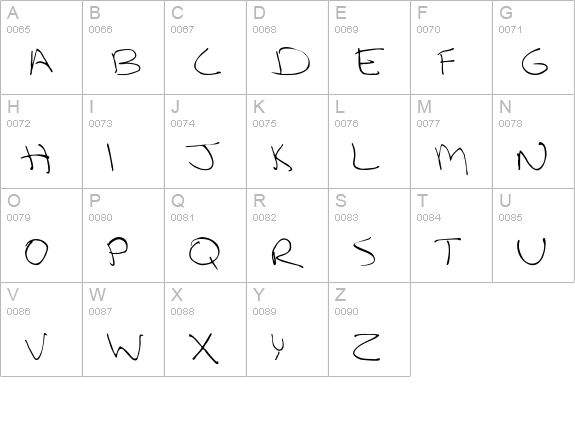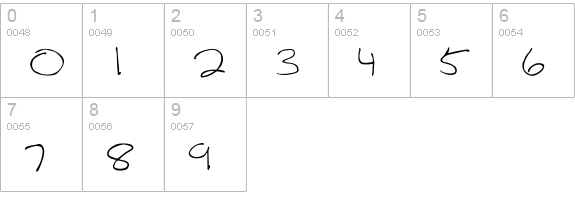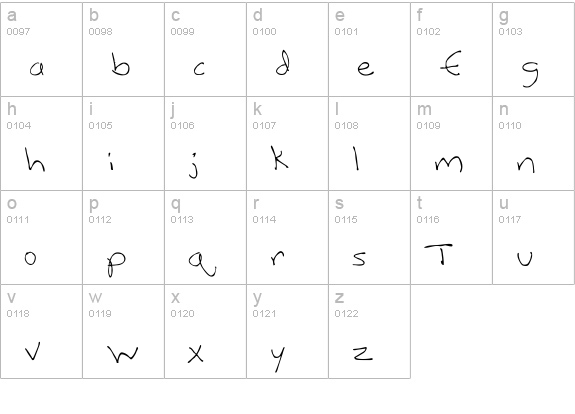
LeftyCasual Font Details
LeftyCasual is a unique and stylish font that brings a touch of casual elegance to your designs. With its slanted and slightly messy letterforms, this font exudes a sense of laid-back coolness, perfect for projects that require a relaxed and informal vibe. What sets LeftyCasual apart is not only its eye-catching design, but also the fact that it is completely free. That's right, you can download this amazing font without spending a dime. It's a fantastic opportunity to add a high-quality typeface to your collection, without having to worry about breaking the bank. Whether you're working on a personal project, a professional presentation, or anything in between, LeftyCasual is a versatile font that will bring a touch of creativity to your work. Its playful yet legible letterforms make it suitable for a wide range of design applications, from posters and logos to social media graphics and website designs. To get your hands on this fabulous font, simply head over to FontsMarket.com, where it is freely available for download. FontsMarket.com is a trusted platform for all your font needs, offering a vast collection of fonts in various styles and categories. Downloading LeftyCasual is quick and easy, allowing you to quickly incorporate this font into your projects and start creating stunning visuals. Don't miss out on the opportunity to enhance your designs with LeftyCasual. Download it for free at FontsMarket.com and let your creativity flow.